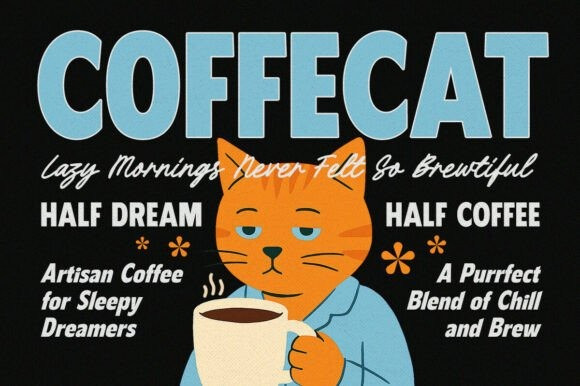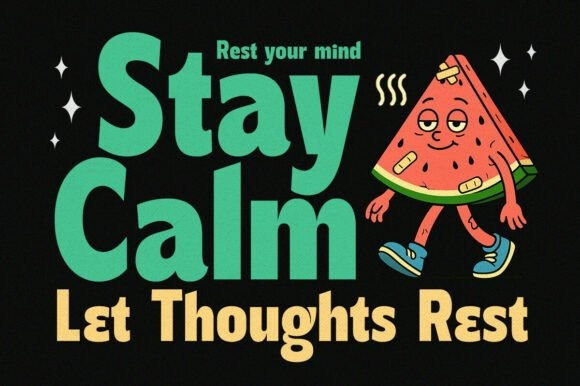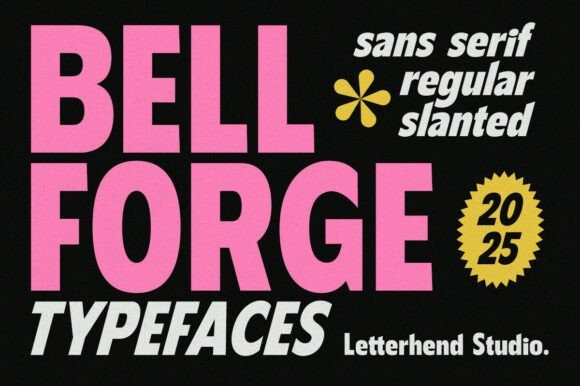
Belforge Geometric Font
Belforge Geometric Font is a powerful and bold sans serif typeface made for standout designs.Available in both regular and slanted styles, it combines clean geometric shapes with retro-modern aesthetics. This typeface is perfect for posters, branding, album covers, tech packaging, and editorial layouts. Its thick letterforms make it ideal for large displays, headlines, and advertising.Whether you’re going for a vintage vibe or a strong contemporary look, Bellforge delivers confident, stylish typography.The font is also PUA-encoded, ensuring effortless access to all glyphs, swashes, and alternate characters to help you customize your creations with ease.